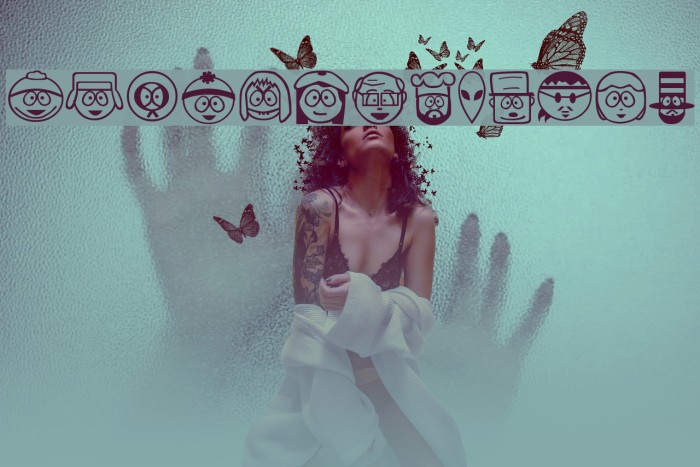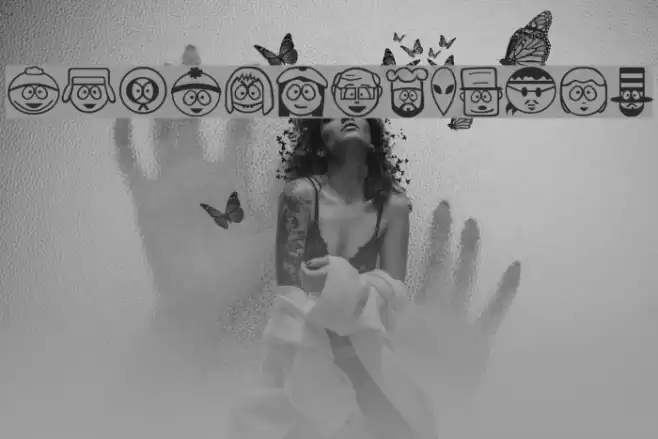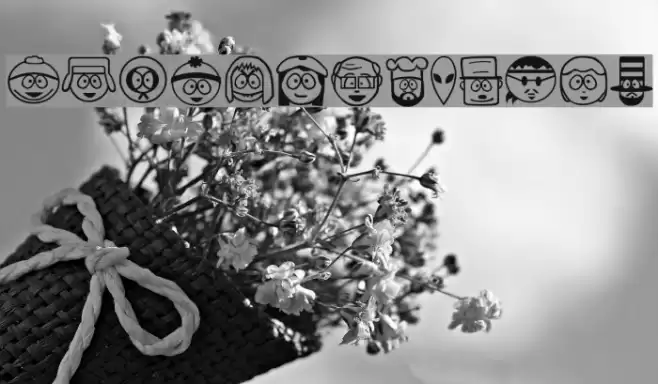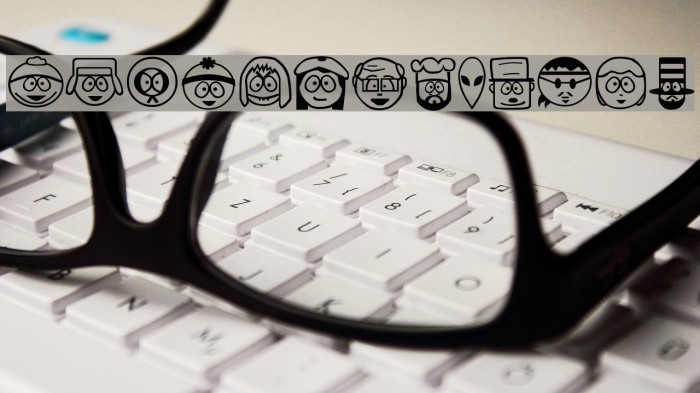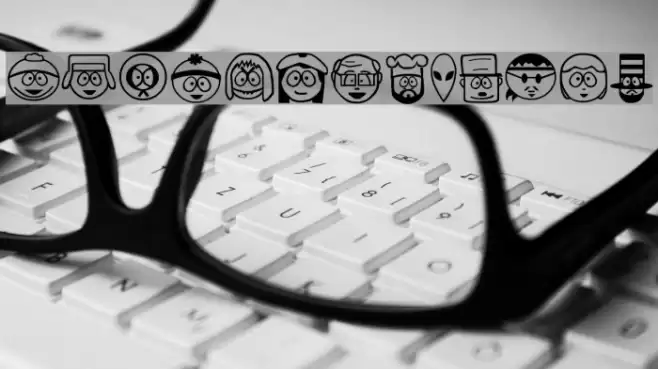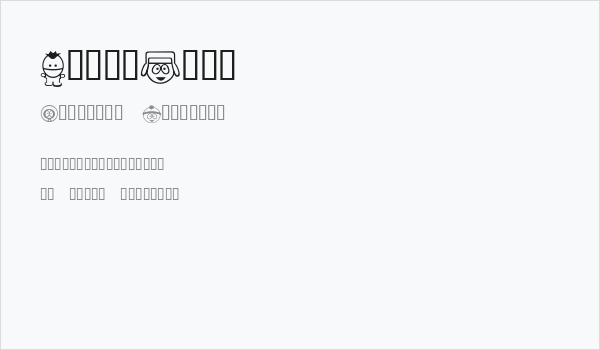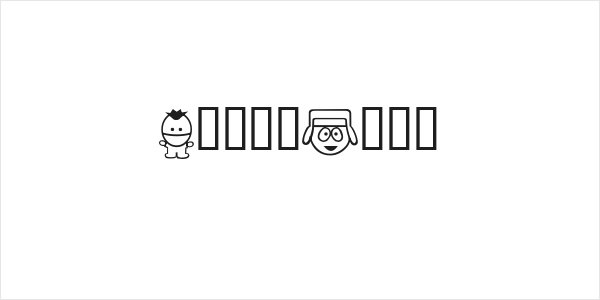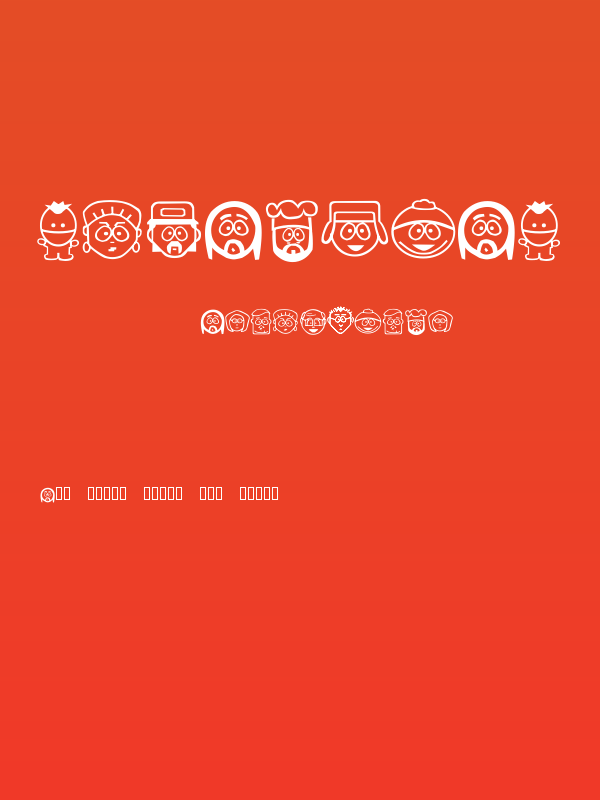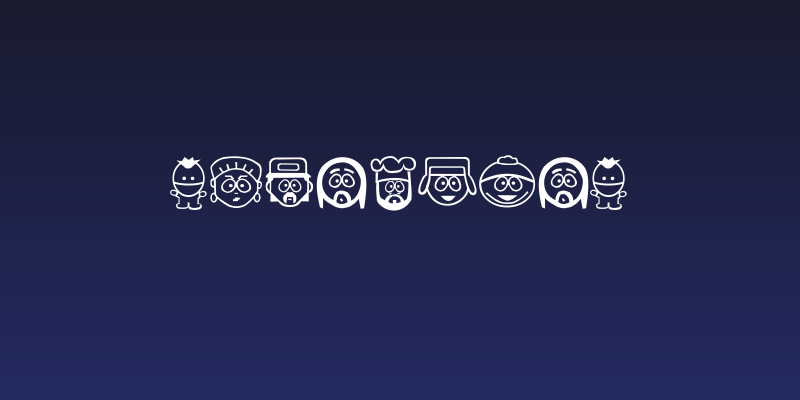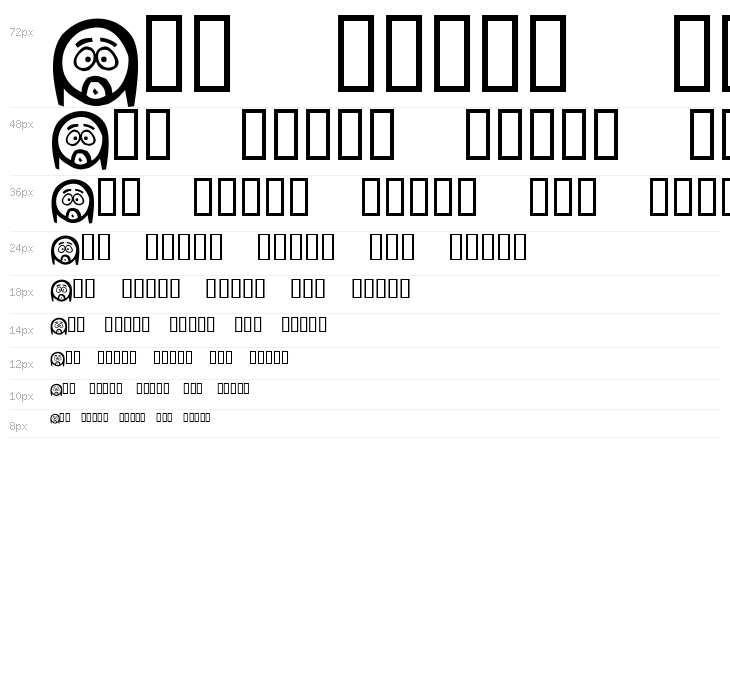
SouthBats Font
SouthBats Description
A decorative dingbat font featuring a variety of cartoon-style character faces, each with distinct expressions and accessories, rendered in bold black outlines with simple, playful details.
| Overall Style | Playful, Cartoon, Decorative |
| Use Case | Icons, Decorative elements, Themed graphics |
| Proposed Projects | Children's books, party invitations, comic strips, playful branding, educational materials. |